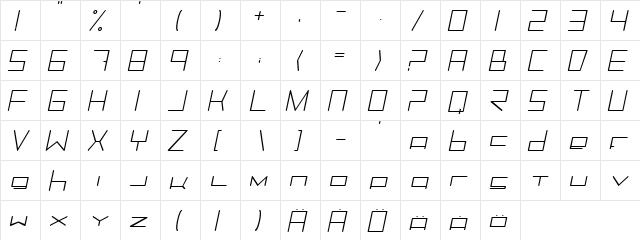
Trancemission LightItalic
Design Context for Trancemission Typeface
Trancemission takes a measured approach to typography — its balanced proportions and neutral character make it a reliable workhorse for both digital and print work. The slanted form adds forward momentum and visual energy. Its slender proportions lend an understated elegance to any composition.